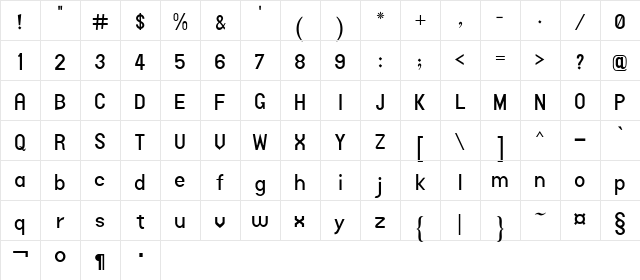
AlQalam Fahad Regular
Designer: Syed Shakir ul Qadree
Complete AlQalam Fahad Regular glyph index. Displaying only characters natively supported by AlQalam Fahad Regular font.
Design Context for AlQalam Fahad
AlQalam Fahad is a composed and adaptable typeface that performs quietly and consistently across a wide range of design contexts.